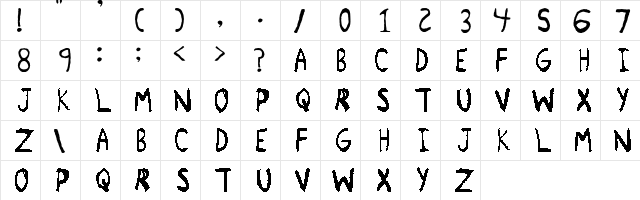
Remnant Regular
| Designer | Chris Au |
Design Context for Remnant Typeface
Remnant is a composed and adaptable typeface that performs quietly and consistently across a wide range of design contexts.